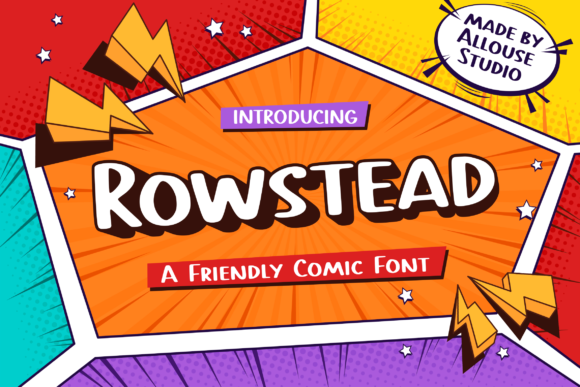
Introducing Rowstead: The Joyful Display Font That Captures Hearts
Step into a world of delightful design with Rowstead, an enchanting display font that brings a splash of joy and cheer to your creative projects. With its playful and friendly nature, Rowstead is the perfect choice for adding a touch of whimsy to your designs. Whether you're a seasoned designer or just starting, embrace Rowstead's charm and let it ignite your imagination.
A Symphony of Smiles for Your Designs
Rowstead's captivating curves and cheerful letterforms are like a breath of fresh air, bringing a smile to the faces of your audience. Its playful personality shines through in every word, adding a touch of magic to your designs. From cartoon-related adventures to children's games, quotes, and brand names, Rowstead effortlessly elevates your creations with its infectious charm.
Embrace the Creative Spirit with Rowstead
Unleash your creativity and let Rowstead be your artistic muse. Whether you're designing book covers, posters, or any project that calls for a touch of joy, Rowstead is your perfect companion. Its versatility knows no bounds, allowing you to weave enchanting stories and captivating messages that resonate with your audience.
A Joyous Addition to Your Design Arsenal
Join the ranks of creative visionaries who have discovered the magic of Rowstead. Let this delightful font become your secret weapon, transforming your designs into masterpieces that captivate and enchant. With Rowstead, you'll find yourself creating with renewed passion, spreading joy through your designs, and leaving a lasting impression on your audience.